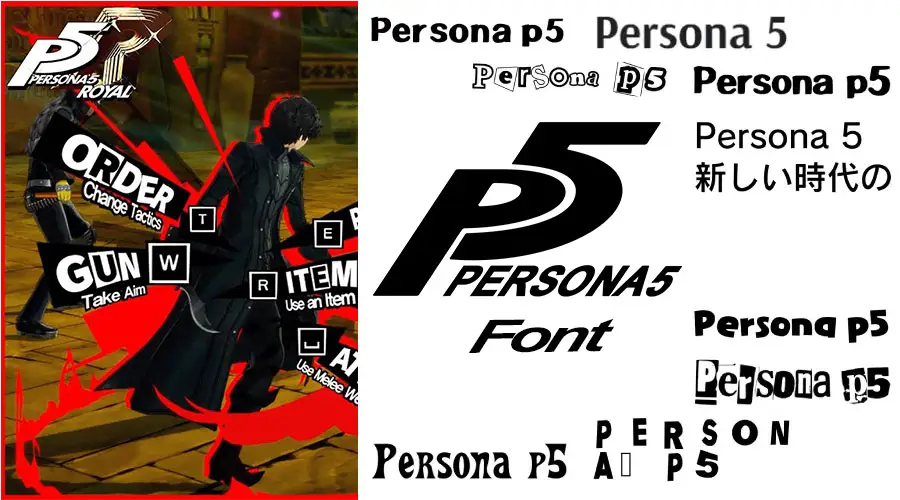
Persona 5 Royal is a role-playing video game released in 2019 in Japan and 2020 worldwide. It is an enhanced version of Persona 5, released in 2016. The game uses different fonts for different elements, such as dialogue, menus, actions, and times. In this article, we will introduce some fonts that are used or look similar to those in Persona 5 and Persona 5 Royal games.
What is the Persona 5 font?
The font that is used for the logo and title of Persona 5 and Persona 5 Royal is called Arial. For similar font effects, narrow the font to 32 degrees. You can try it in Photoshop or similar software and see for yourself. The “p5” logo and Rodfellows Wacky font are a bit similar in our observation.
Different fonts, like dialogue, menus, actions, and times, are used for different game parts. We find some official fonts like Rodin and Helvetica and similar ones like Charisma, Slump, Optima Nova Black, Arsenal, and P5 Hatty. Some gamers have also noticed that the fonts in different game versions differ.
Details about all the fonts that are used or look similar in the game
Rodin font
A Japanese font company named Fontworks Inc. created the Rodin font family. It has various weights and styles, such as light, regular, bold, italic, etc. Rodin is used for most elements in the Japanese version of Persona 5 Royal, such as times, actions, menus, etc. Some of these elements are already set in the English version, so they get carried over to the English version.
Personified UX Regular
It’s a recreated font from the official “카리스마 / KoreanKRSM” font. This font was used in the text chat bubble in the game.
Optima Nova Black
Optima Nova Black is a font created by Hermann Zapf and Akira Kobayashi of Linotype GmbH. It has a humanist and elegant look with some contrast and flare. Optima Nova Black is similar to most elements in the English version of Persona 5 Royal that were translated from Japanese.
Arsenal
Arsenal is a font created by Andriy Shevchenko of the Cyreal Type Foundry. It has a geometric and clean look with some curves and angles. Arsenal is similar to Optima Nova Black but more bland and neutral. Arsenal is similar to some elements in the English version of Persona 5 Royal that were translated from Japanese.
p5hatty Regular Font
p5hatty Regular is a TrueType fan-made font created by HattyMikune. They designed the P5 font using image files from the game’s assets folder. All the glyphs are spot on, with some minor size issues.
Persona 5 Menu Font
Persona 5 Menu Font is a fan-made font created by Michael Sharpe. It is based on the font used for the menus and interface in Persona 5. It has a sleek and futuristic look with some sharp edges and curves.
Expose Regular Font
Expose Regular font was created by Jakob Fischer of Pizzadude. It is a free font with a grungy, distressed look with some scratches and stains. It is similar to the font used for the loading screens and transitions in Persona 5.
Heavy Heap Font
Heavy Heap Font is a font created by Ray Larabie of Typodermic Fonts. It is a free font with a heavy metal and rock style with spikes and flames. It is similar to the font used for the personas’ names in Persona 5.
Persona5main Font
It was also a fan-made OpenType font that was published in 2022. It was designed by the YouTuber name Vermillionaire.
Persona 5 has used different fonts for different versions and parts of the game to give it a unique look that fits its theme and mood. Some gamers have noticed that these fonts look different in different versions or on different platforms, so they have suggested other fonts.